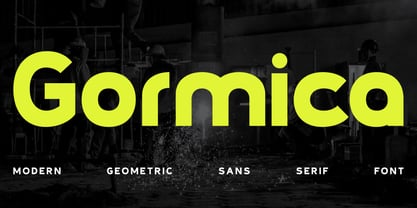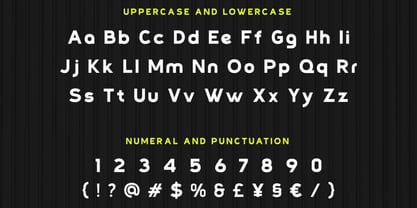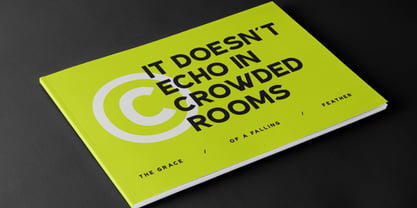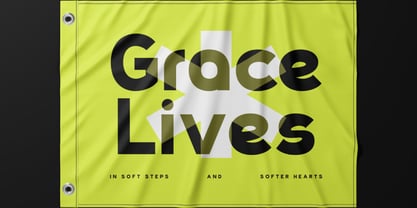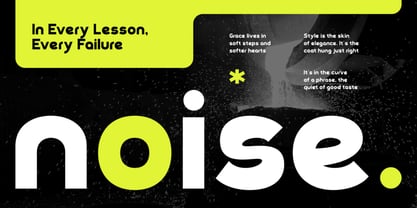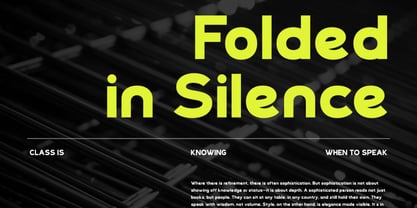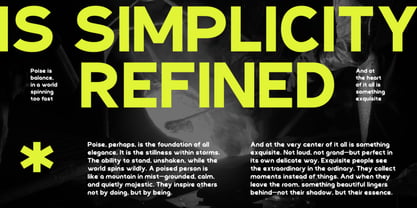
Gormica
by Vadova Std
The Gormica Font Family was designed by and published by Vadova Std. Gormica contains 1 styles. More about this family
Gormica is a modern geometric sans serif font designed with bold proportions, clean structure, and strong visual impact. Built on precise geometric foundations, it features balanced curves, confident strokes, and contemporary letterforms that perform exceptionally well in both large headlines and structured layouts. Gormica is highly relevant for modern branding systems, corporate identities, tech startups, industrial design presentations, digital interfaces, editorial layouts, posters, and bold advertising campaigns. Its geometric clarity and strong structure make it suitable for impactful headlines, logo design, packaging, website headers, and professional marketing materials.